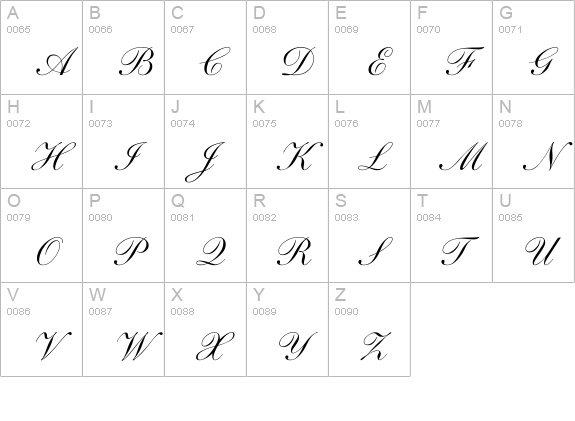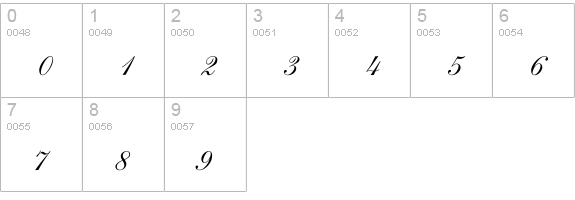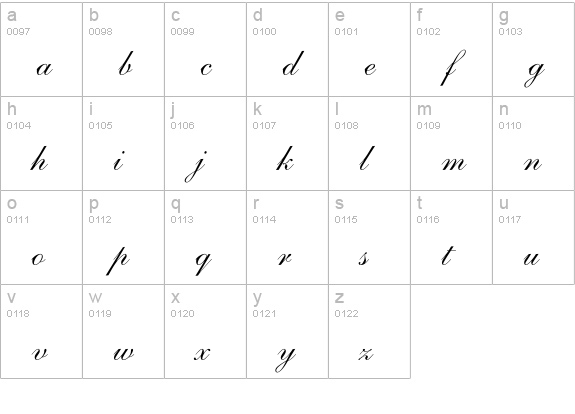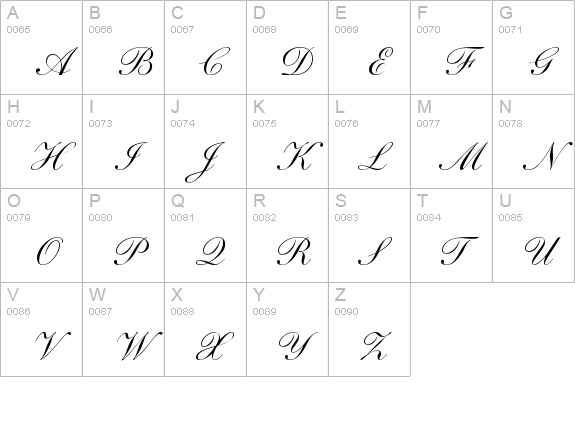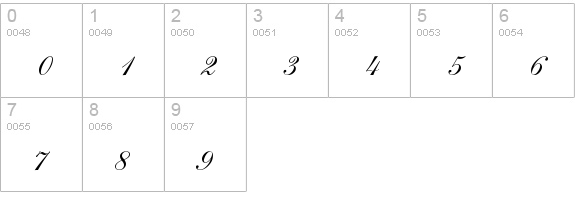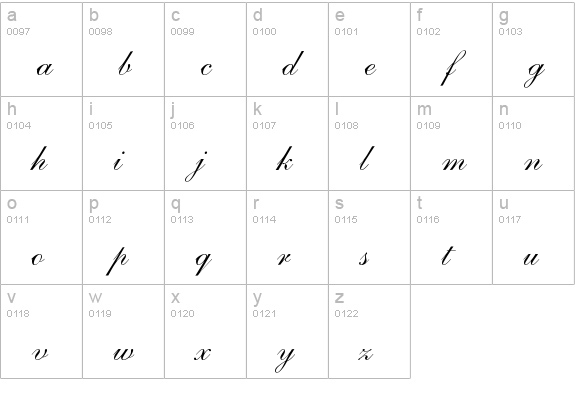
Andante Font Details
The Andante font is a beautiful and elegant typeface that exudes sophistication and charm. With its graceful curves and delicate lines, Andante is perfect for adding a touch of refinement to any project. Whether you're designing a wedding invitation, crafting a logo, or creating a stylish poster, this versatile font is sure to make a lasting impression. What's even better is that Andante is available for free download at FontsMarket.com. This means you can easily access this stunning font and incorporate it into your designs without any cost. Don't miss out on the opportunity to enhance your creations with the timeless beauty of Andante font. Download it today and elevate your design game to new heights!